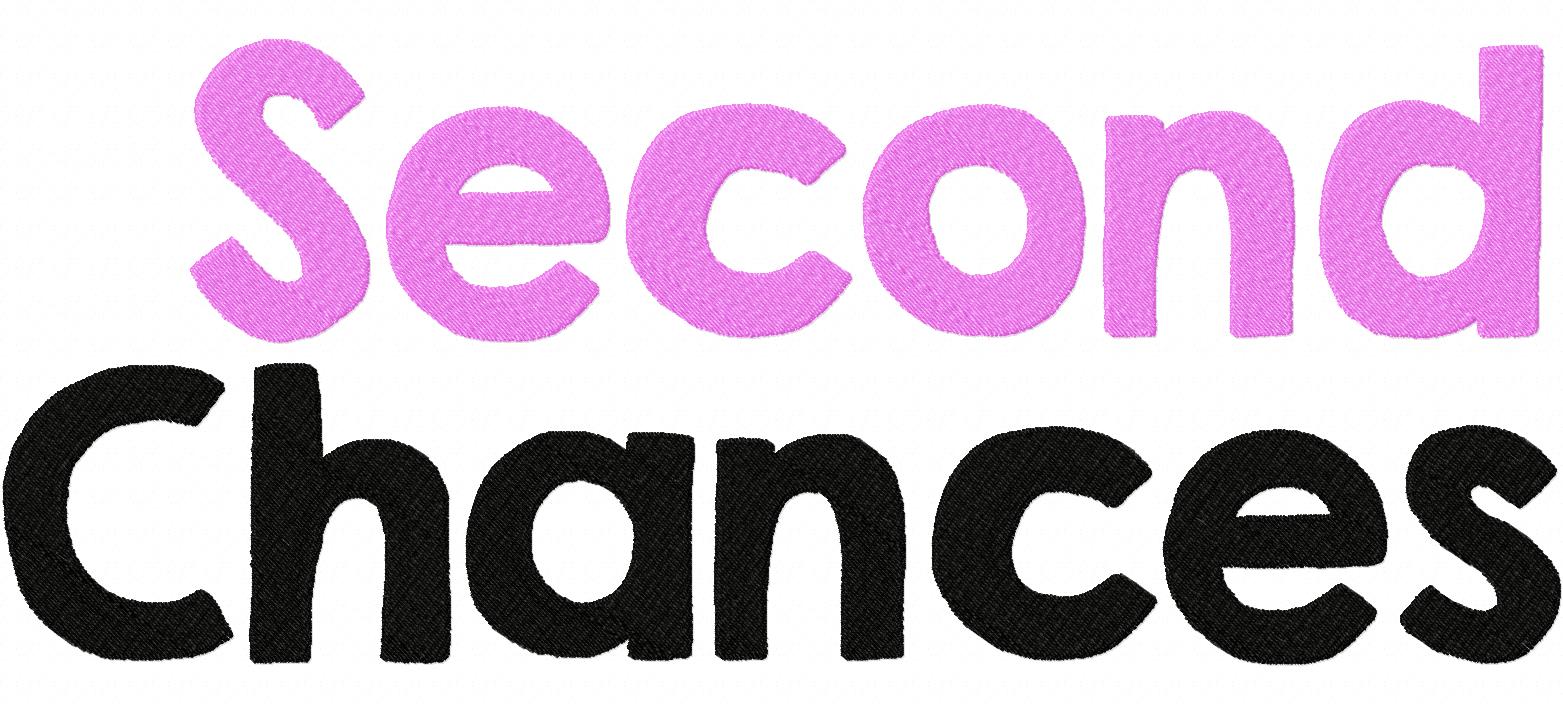
Add this font design to any project that needs a bit of monogramming fun and boldness!
The Second Chances Machine Embroidery Font Set includes all Uppercase Letters, Lowercase Letters and Numbers in all of the following sizes: 1″ 2″ & 3″